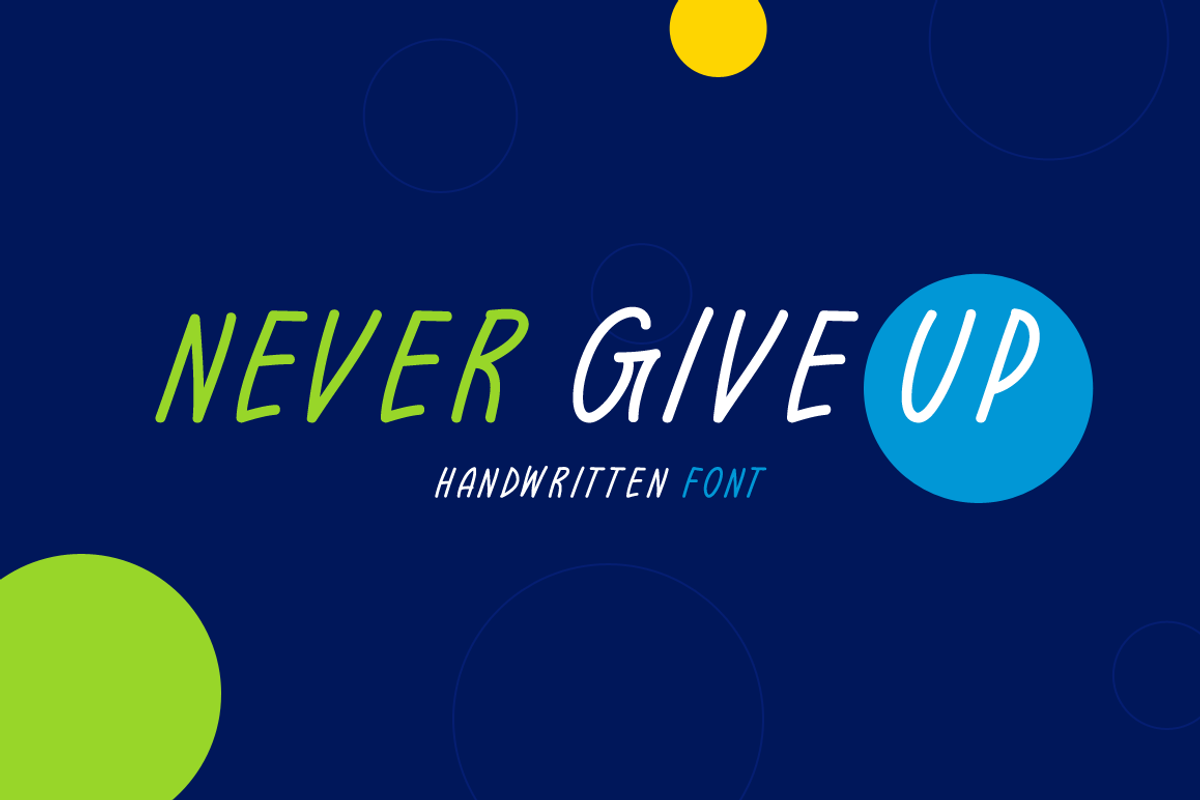
Never Give Up Typeface Free Download is a bold and inspiring font that brings a motivational touch to your designs. With its strong, impactful letterforms, this typeface is perfect for creating designs that demand attention and convey determination. Whether you're working on posters, social media graphics, or any project where you need to make a statement, Never Give Up Typeface ensures your message is heard loud and clear.
Never Give Up Typeface Free Download features a powerful design that combines modernity with a hint of classic typography. Its clean lines and bold presence make it ideal for headlines, quotes, logos, and branding. Whether you're working on a fitness campaign, an inspirational project, or any creative endeavor, this font will add a motivating touch to your work.